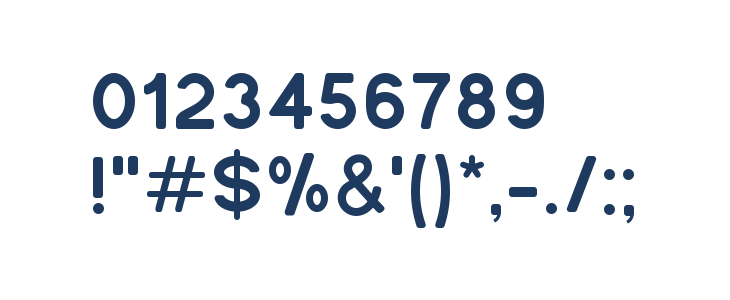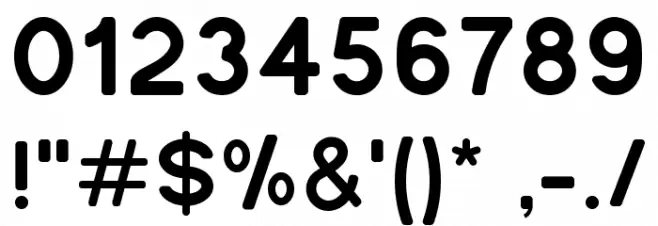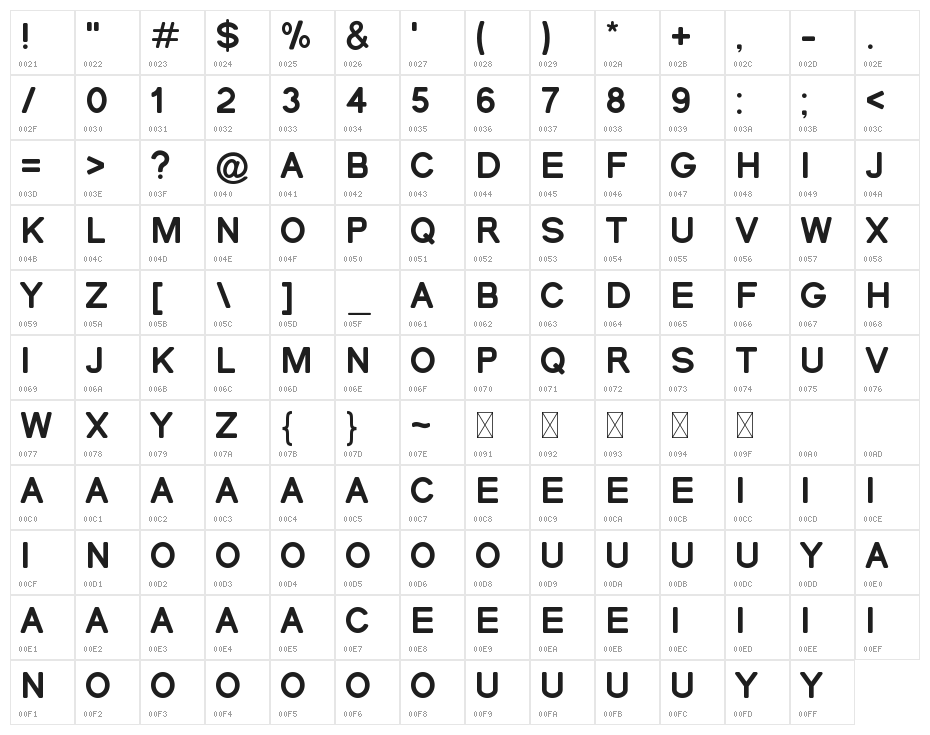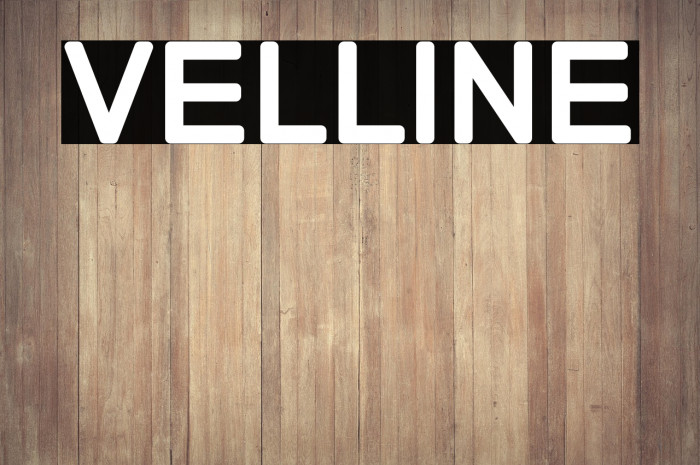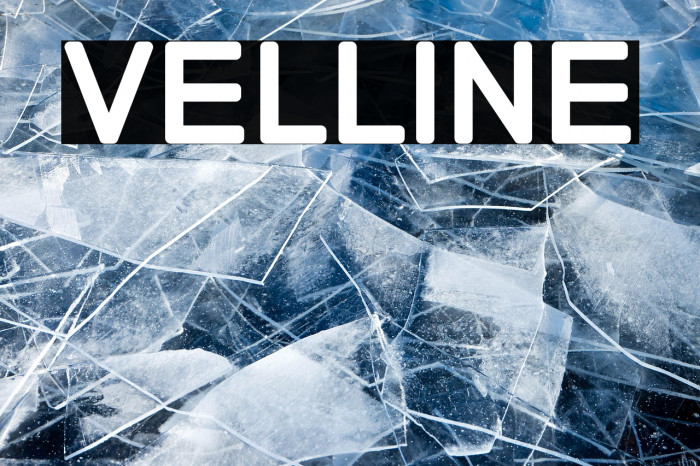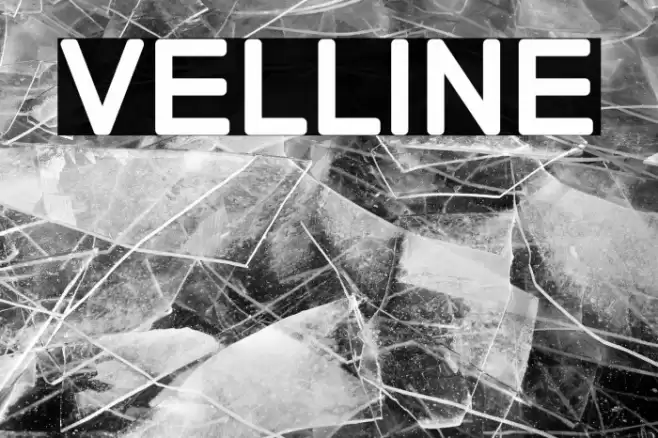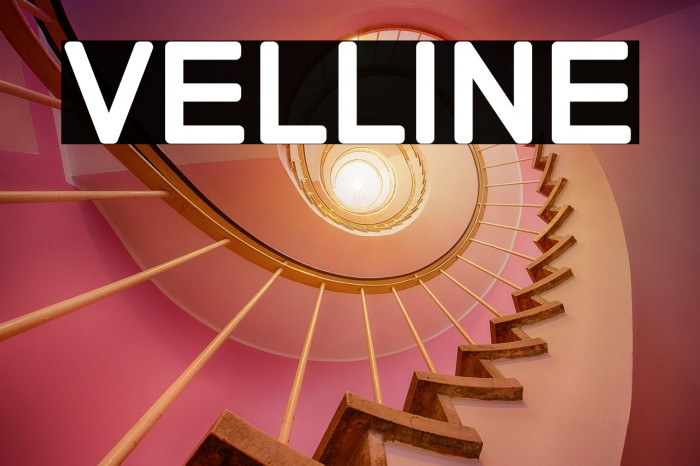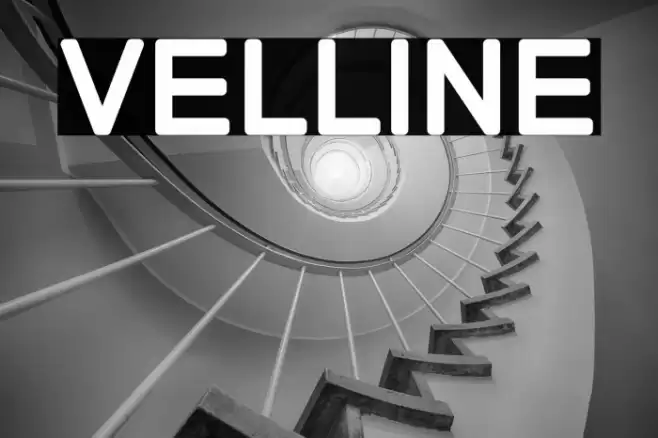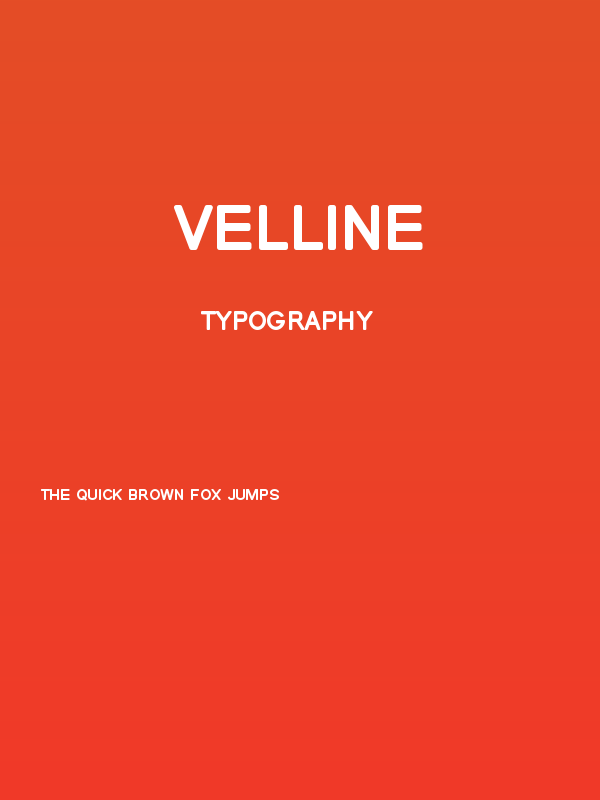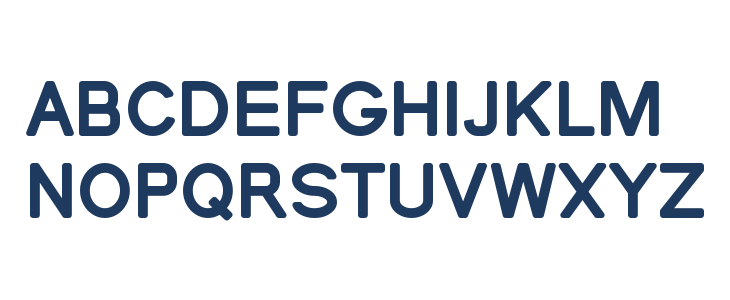
VELLINE Font
VELLINE Description
This font features a clean and modern sans-serif style, characterized by its bold and uniform stroke width. The letters are well-proportioned with a geometric influence, providing a sense of stability and clarity. The uppercase and lowercase characters maintain a consistent height, contributing to a balanced and harmonious appearance. The numerals are clear and easy to read, making them suitable for various applications. The special characters are designed with the same attention to detail, ensuring they integrate seamlessly with the rest of the typeface. Overall, this font exudes a contemporary and professional feel, making it versatile for both digital and print media.